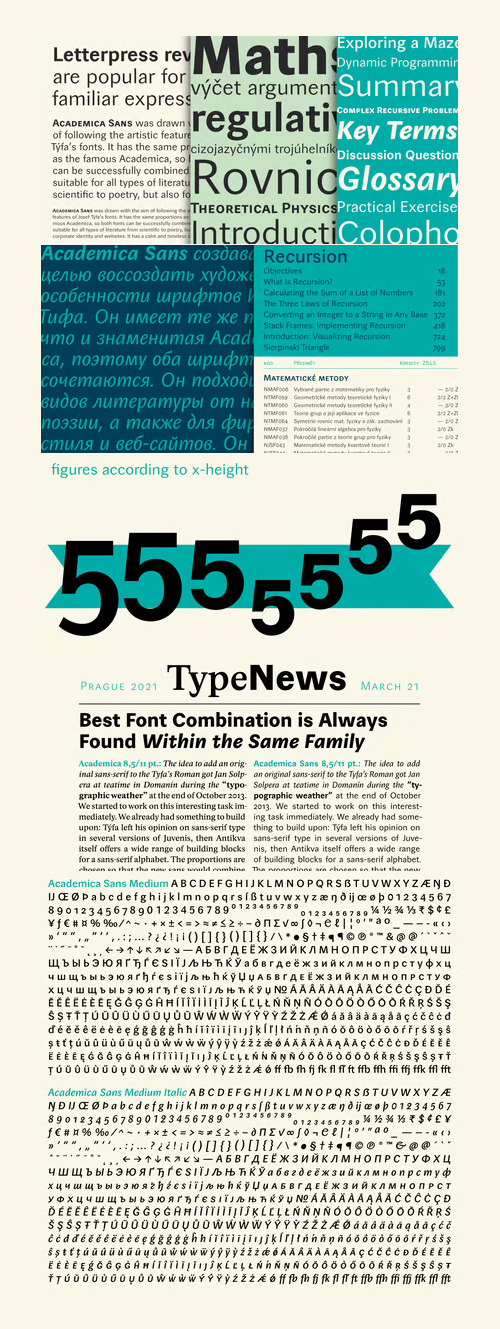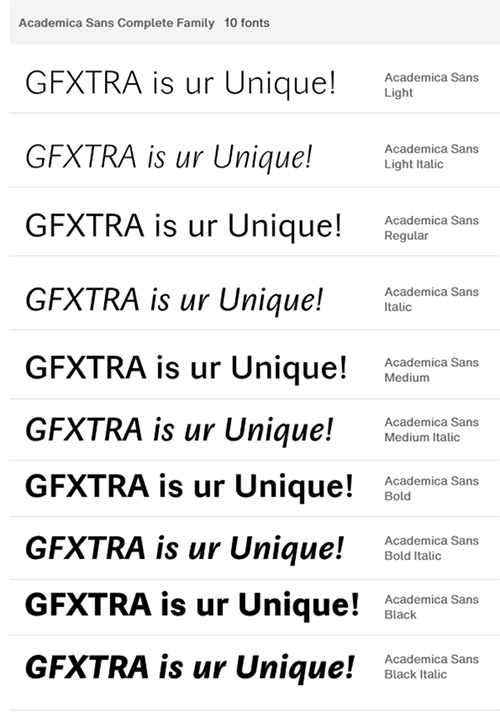
Academica Sans - 10 Styles Font Family
- Reliable scientific sans-serif. It has the same proportions as the famous serif Academica, so both fonts can be successfully combined. It is suitable for all types of literature, from educational to poetry, but also for corporate identities and websites. It has a calm and timeless character.